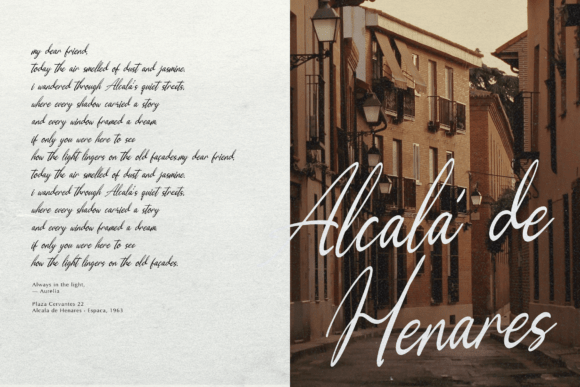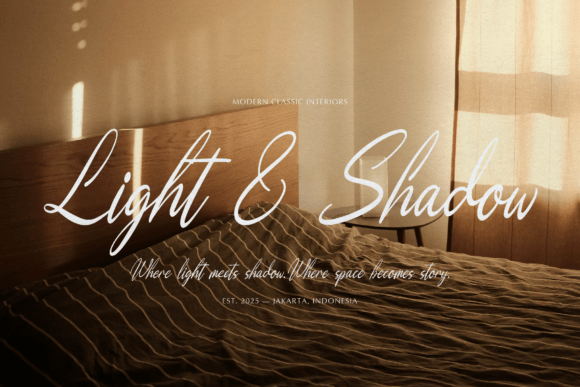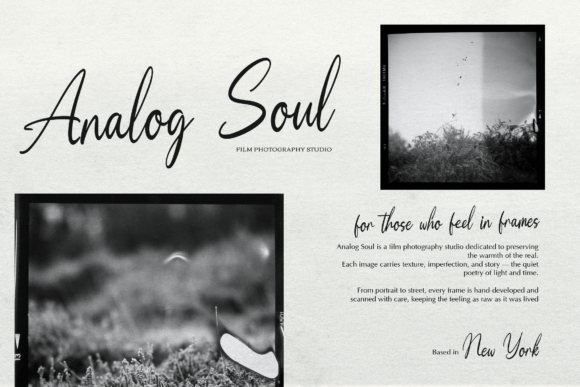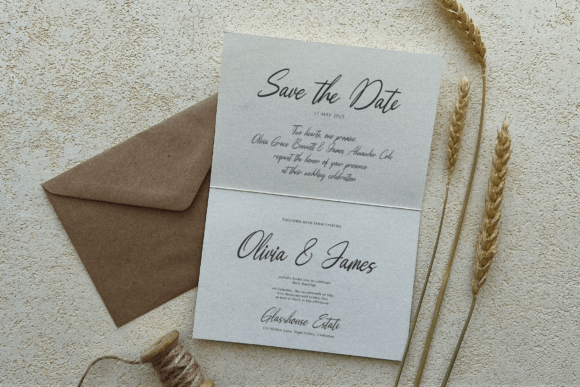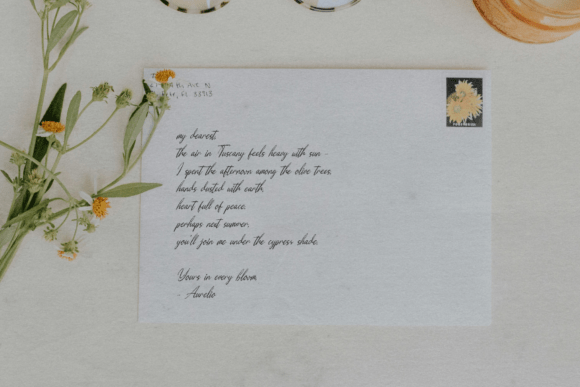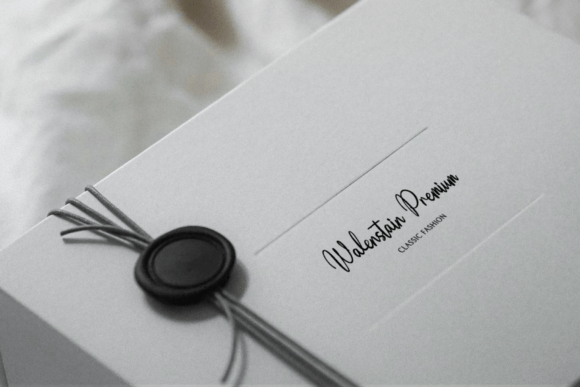
Introduction to Moonlit Muse Font
As I sat by the window, watching the moon cast its silvery glow on the night sky, I felt my creativity stir. The soft light seemed to awaken a sense of romance and elegance, and I couldn’t help but think of the perfect font to match the mood. That’s when I stumbled upon the Moonlit Muse Font – a stunning, elegant handwritten script font that captures the essence of natural flow and delicate strokes.
For designers, having access to high-quality design resources like Moonlit Muse Font can be a game-changer. With over 280 glyphs, ligatures, and multilingual support, this font is perfect for a wide range of creative projects, from wedding invitations to personal branding. Its transparent background and free download option make it an attractive choice for designers looking to add a touch of sophistication to their designs.
Key Features of Moonlit Muse Font
- High-quality, elegant design perfect for creative projects, offering a touch of sophistication and whimsy.
- Features a unique, hand-drawn aesthetic, making it ideal for projects that require a personal, artistic touch.
Honest Review: Moonlit Muse Font
As a designer, I’m always on the lookout for high-quality design resources to elevate my creative projects. Recently, I came across the Moonlit Muse Font, and I’m excited to share my thoughts on this beautiful font.
What works well: ✨ The Moonlit Muse Font has a dreamy, ethereal quality that’s perfect for projects that require a touch of whimsy. The font is highly customizable, and the transparent background makes it easy to integrate into any design. I particularly love the subtle texture and the way it adds depth to my designs.
- Perfect for creative projects that require a touch of elegance
Limitations: ⚠️ While the Moonlit Muse Font is generally easy to use, I did encounter some issues with the font’s consistency across different font sizes. Additionally, some of the characters may not render properly in certain design software.
Overall, I’m impressed with the Moonlit Muse Font, and I would highly recommend it to designers who are looking for a unique and high-quality design resource. With a little patience and experimentation, this font can be a valuable addition to any design toolkit.
The Moonlit Muse Font is a high-quality design resource perfect for creative projects. With its elegant and dreamy style, it’s ideal for a variety of uses, from wedding invitations to editorial content.
Tips for Getting the Most Out of Moonlit Muse Font
To maximize the potential of the Moonlit Muse Font, use it in combination with other design elements that complement its style. Experiment with different font sizes, colors, and arrangements to achieve a unique look.
The Moonlit Muse Font is suitable for a range of creative projects, including:
- Editorial content and magazines
- Brand identity and logos
- Print and digital advertising